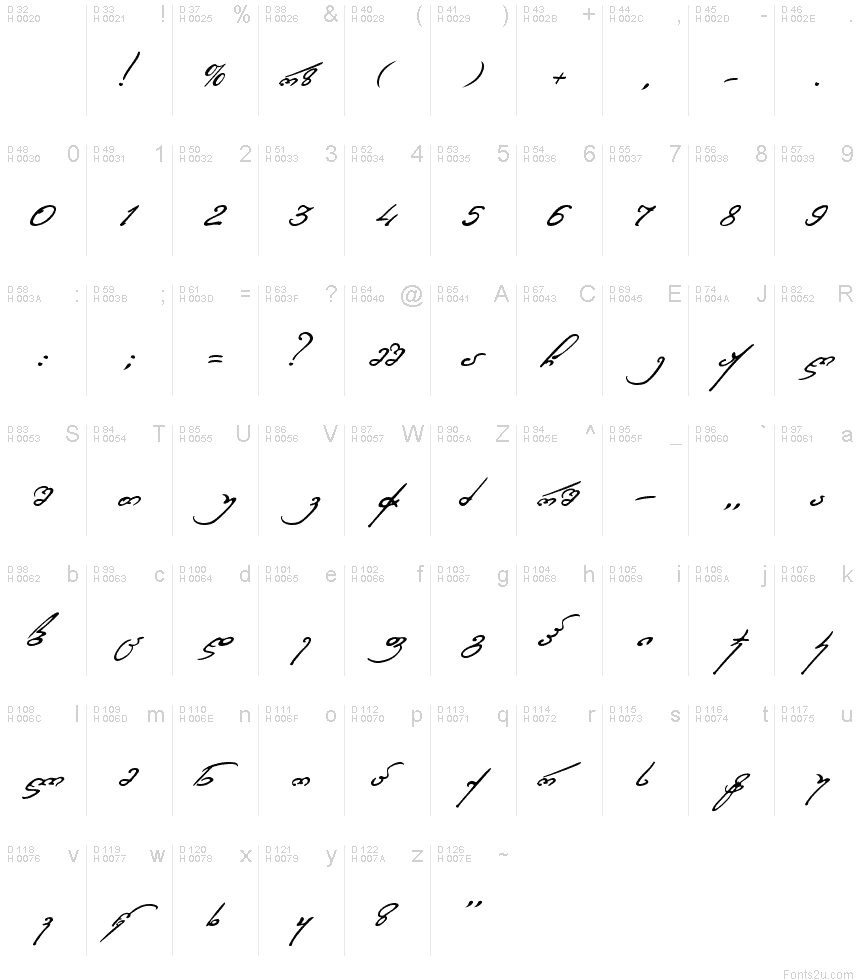
Zaza by Slava Meskhi is a free calligraphic script with the sweep of an assured signature. Broad loops meet fine connecting lines, producing strong changes in stroke width throughout. The forms lean forward and move briskly.
Its long flourishes can echo hand-drawn ribbons or loose line art in fashion illustrations and beauty packaging. That personal, gestural quality also suits wedding invitations and album artwork, where the lettering can feel written for the occasion. Across these uses, an expressive handwritten mark becomes part of the image.